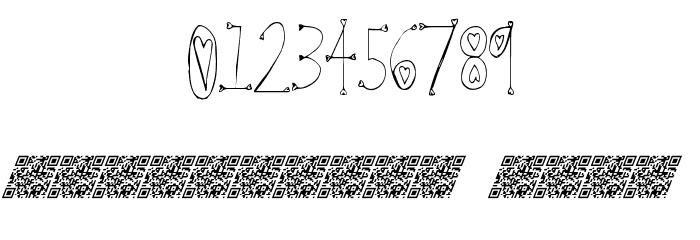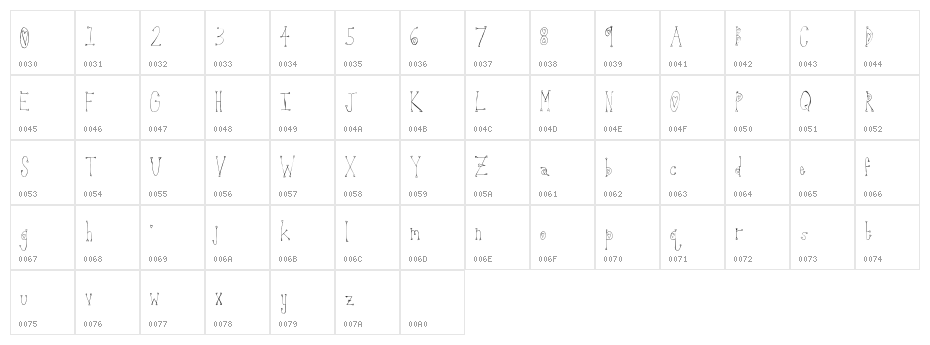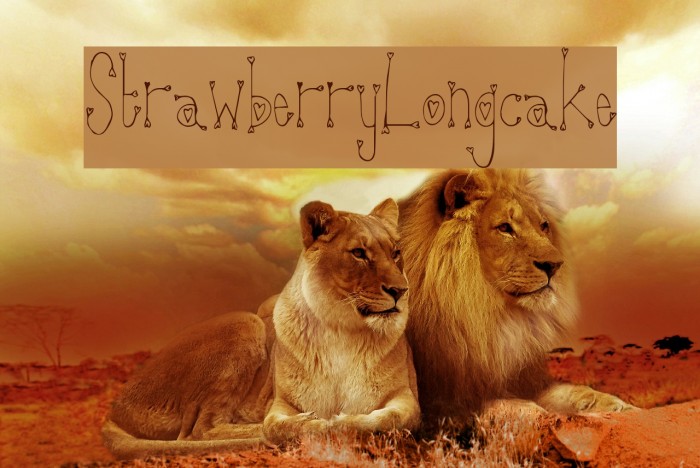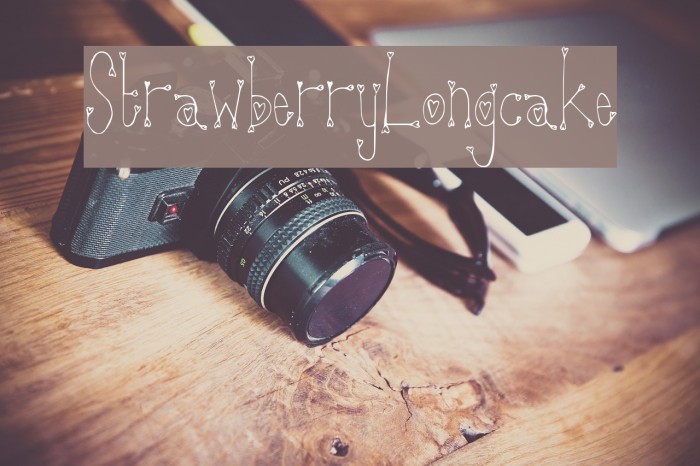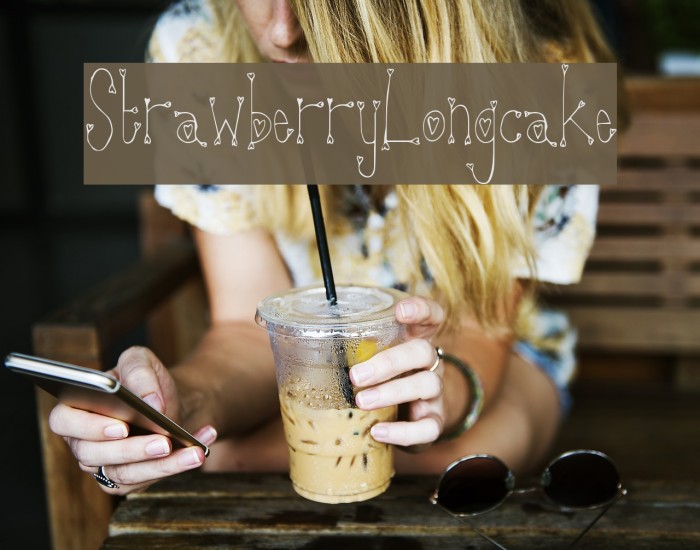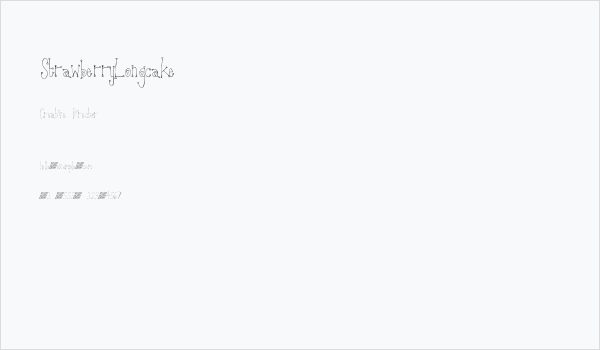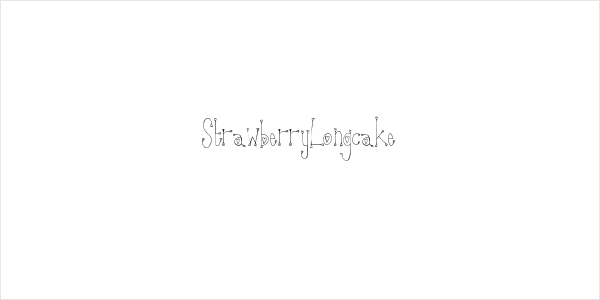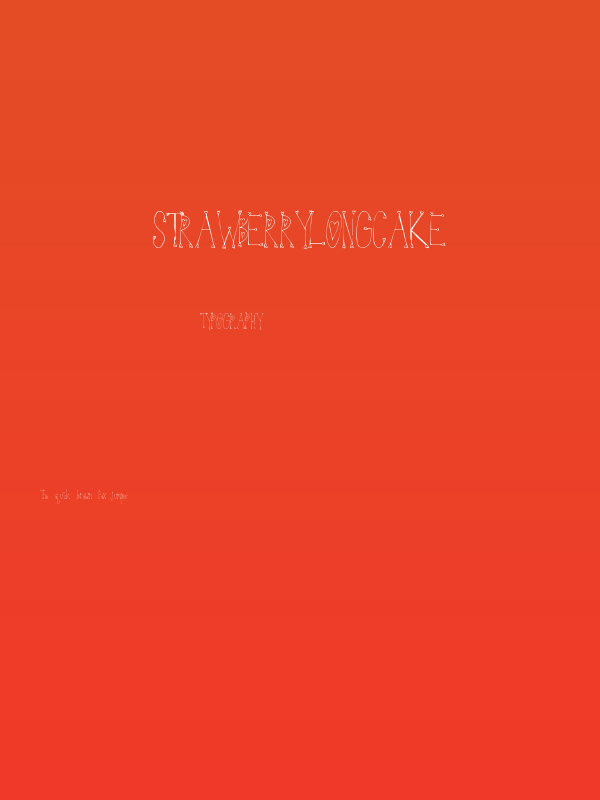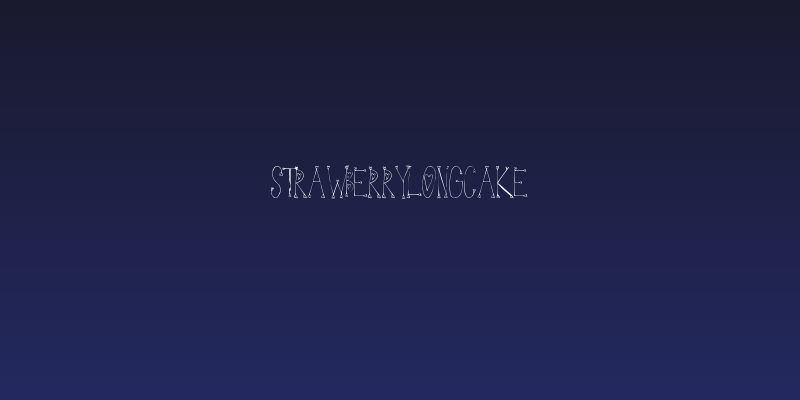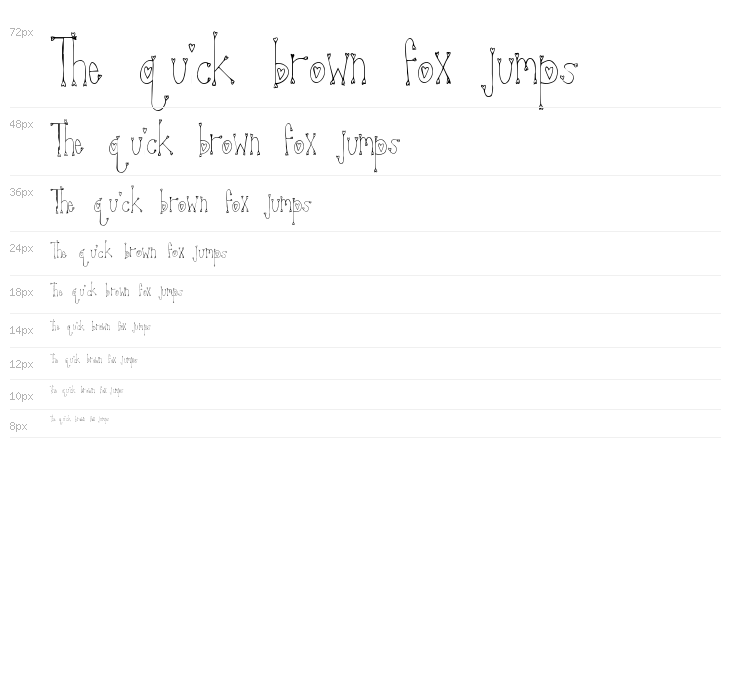
StrawberryLongcake Font
StrawberryLongcake Description
This whimsical and playful font features a unique design with heart-shaped embellishments at the ends of the strokes, giving it a charming and decorative appearance. The characters are tall and slender, with a hand-drawn quality that adds a touch of personalization and creativity. The uppercase and lowercase letters maintain a consistent style, while the numerals and special characters integrate seamlessly with the overall design. This font's artistic flair makes it stand out, perfect for projects that require a touch of fun and creativity.
| Proposed Projects | Ideal for greeting cards, children's book covers, playful branding, and creative invitations. |